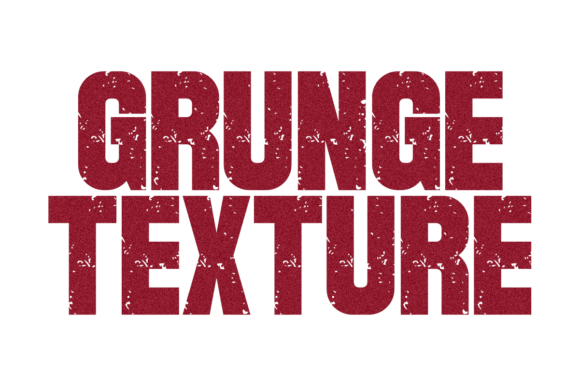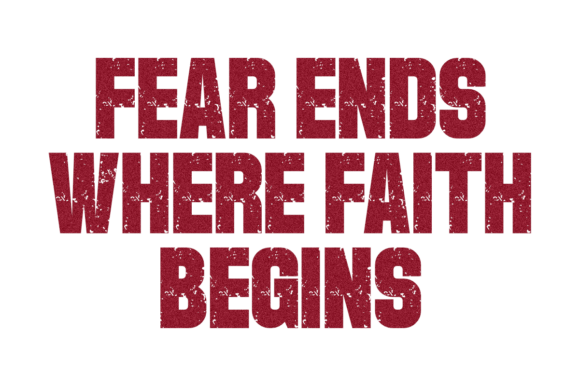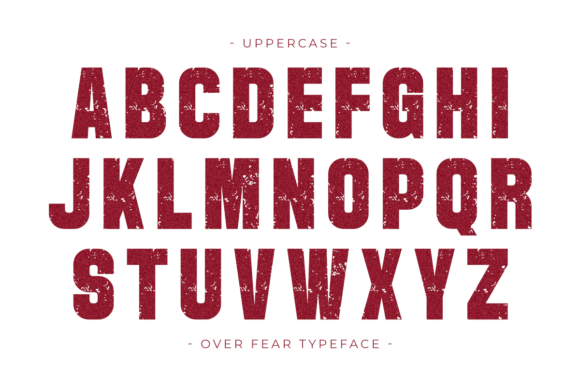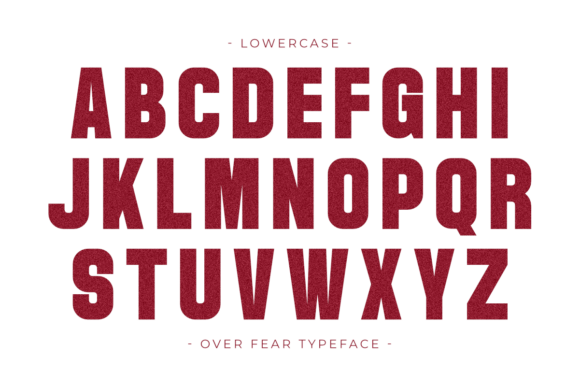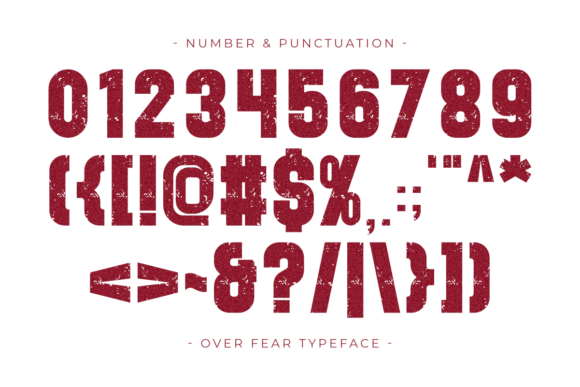
Introduction to Over Fear Font
Over Fear is a commanding and rugged Modern Sans Serif font that features a unique condensed and textured design.
This distressed typeface is built for high-impact visual storytelling, making it perfect for streetwear branding, sports logos, gritty posters, and urban-style headlines Its bold, blocky characters with a worn-out aesthetic deliver a powerful and fearless presence, ensuring your designs stand out in merchandise, apparel, and any project requiring a strong, textured vertical look.
Key Features of Over Fear Font
Why Choose Over Fear Font?